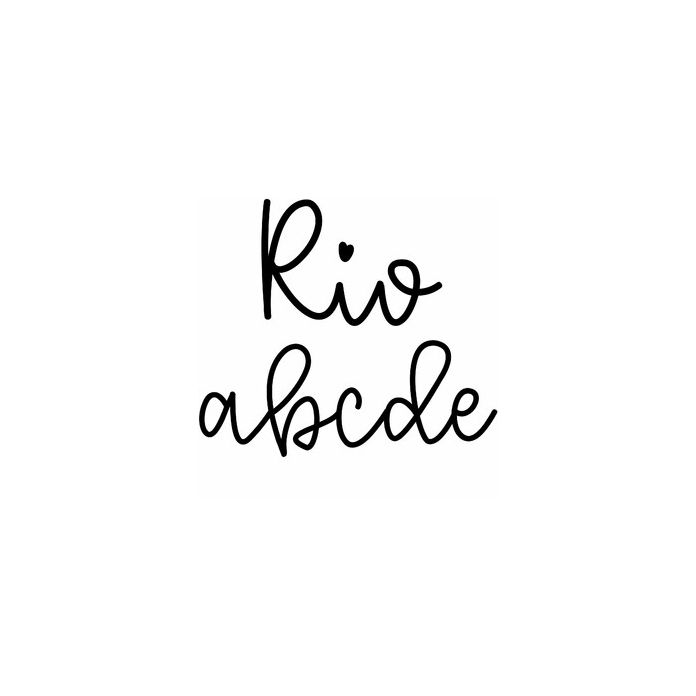
rio handwriting script font
Rio is a pretty handwriting script font, cute for cards, monograms, coffee mugs, signs, labels, notes, stickers, and personalization projects.